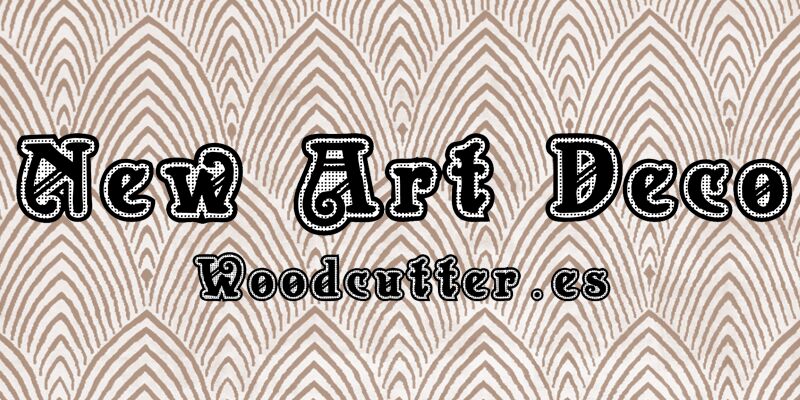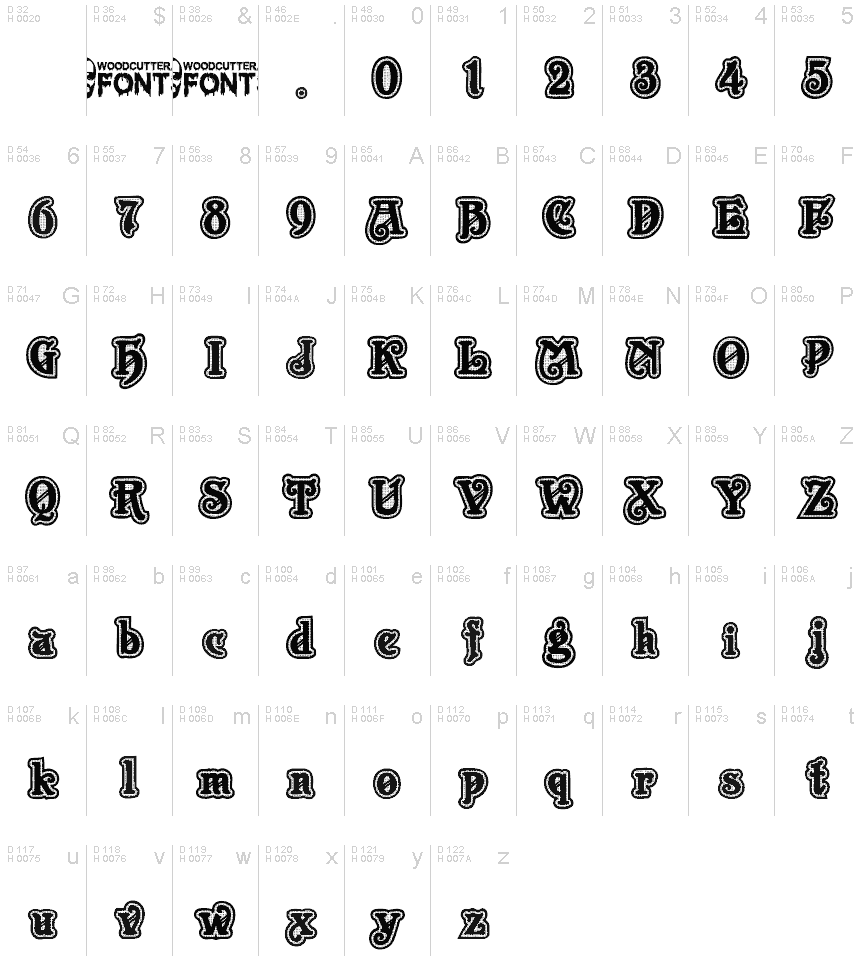
New Art Deco
New Art Deco is a bold, retro-inspired display font that exudes a captivating Art Deco aesthetic. Crafted by Woodcutter Manero, this typeface boasts striking angular forms and a distinctive, eye-catching character that evokes the glamour and elegance of the 1920s. Its bold weight and retro style make it an ideal choice for a range of design applications, from vibrant poster designs and album covers to vintage-inspired branding and signage.
With its unique blend of modern and historical influences, New Art Deco promises to elevate any design project with its impactful, attention-grabbing presence.